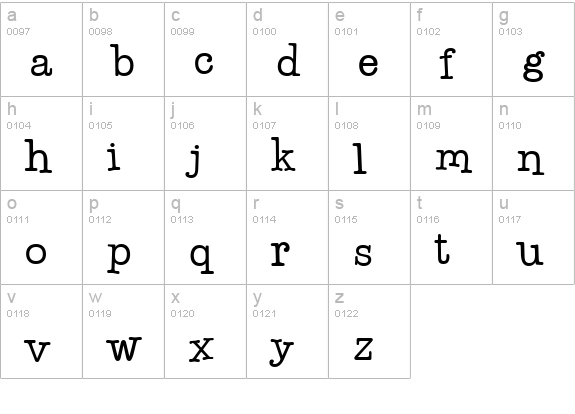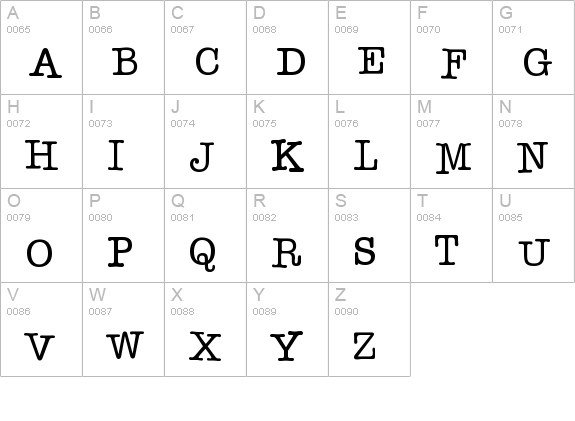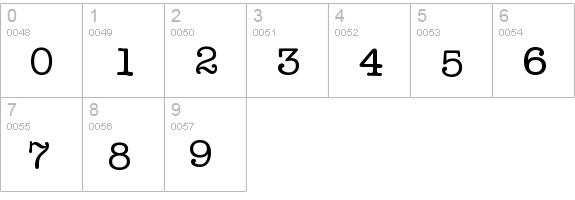
CK Stenography Font Details
Introducing CK Stenography font, a unique and stylish typeface perfect for adding a touch of elegance to your designs. This font features sleek letterforms with a modern twist, making it ideal for various projects such as branding, headlines, posters, and more. CK Stenography font stands out with its clean lines and sophisticated appearance, making it a versatile choice for both digital and print applications. Whether you're looking to create a professional logo or craft eye-catching marketing materials, this font is sure to make a lasting impression. Best of all, CK Stenography font is available for free download at FontsMarket.com, allowing you to easily access this stunning typeface for your creative projects. Don't miss out on the opportunity to enhance your designs with the elegance and style of CK Stenography font. Download it today and elevate your typography game to new heights!